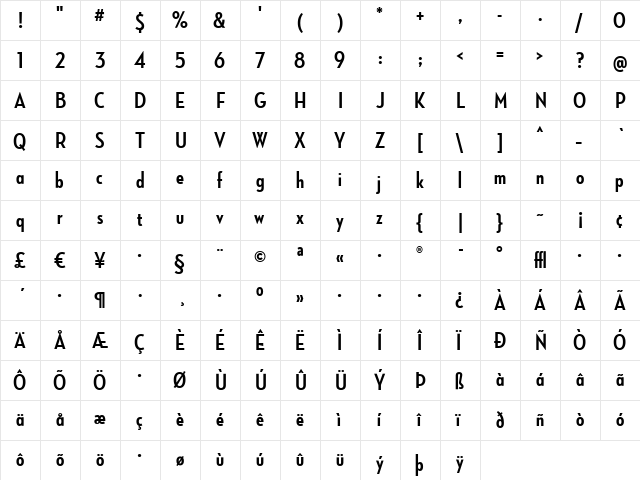
NeutrafaceCondensedPS Bold
Design Context for NeutrafaceCondensedPS Typeface
NeutrafaceCondensedPS is a composed and adaptable typeface that performs quietly and consistently across a wide range of design contexts. Its bold stroke weight gives it real presence on the page. The condensed width makes it efficient for tight spaces without sacrificing legibility.